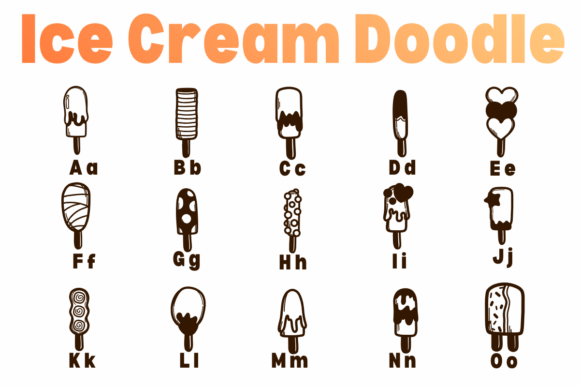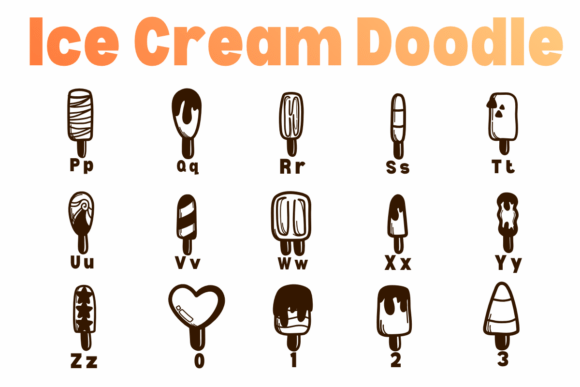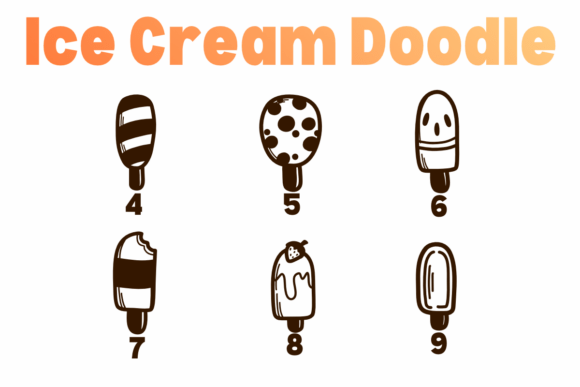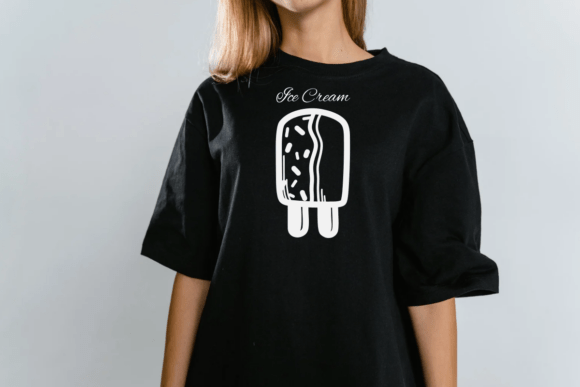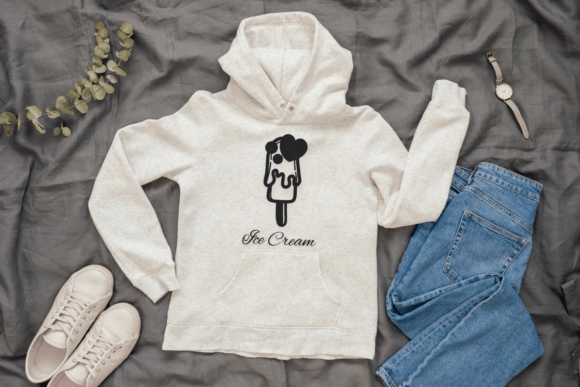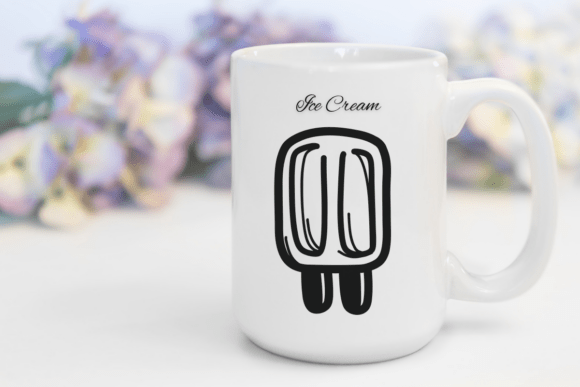
Introduction to Ice Cream Doodle Font
Ice Cream Doodle is a dingbats font with theme with a sketch style.
This font can enhance your creative projects such as wedding invitations, DIY, crafts, decorations, logos, and many other creative ideas .
Ice Cream Doodle Font offers exceptional quality and versatility, making it a valuable addition to your design toolkit. Whether you’re creating for personal projects or commercial use, Ice Cream Doodle Font delivers professional results.